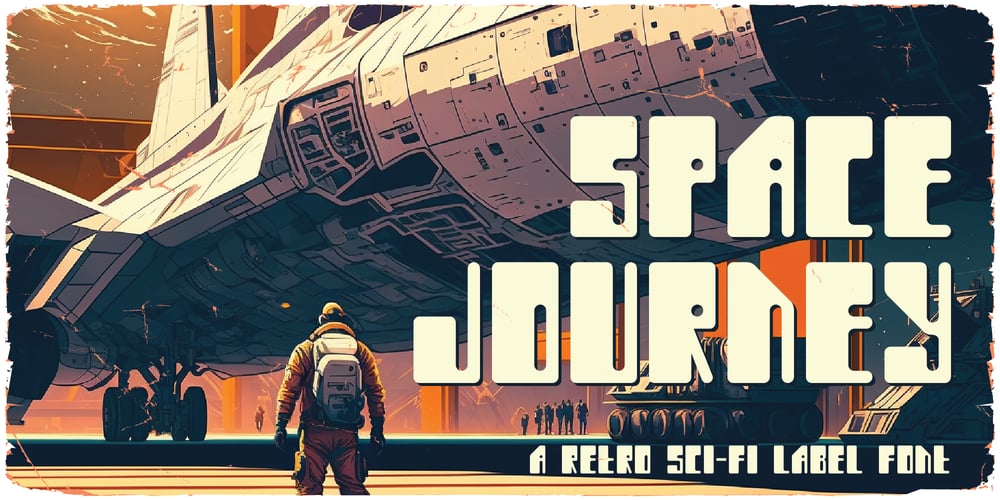
Space Journey Font Family was designed by Oleg Voznyy and published by Vozzy. Space Journey contains 2 styles and family package options. Introducing retro sci-fi label font duo named Space Journey. This display font is inspired by movie posters from the 60s and 70s. Font family has two styles: Regular and Rough. This font will look good on any retro sci-fi styled designs like a poster, T-shirt, label, logo, etc.